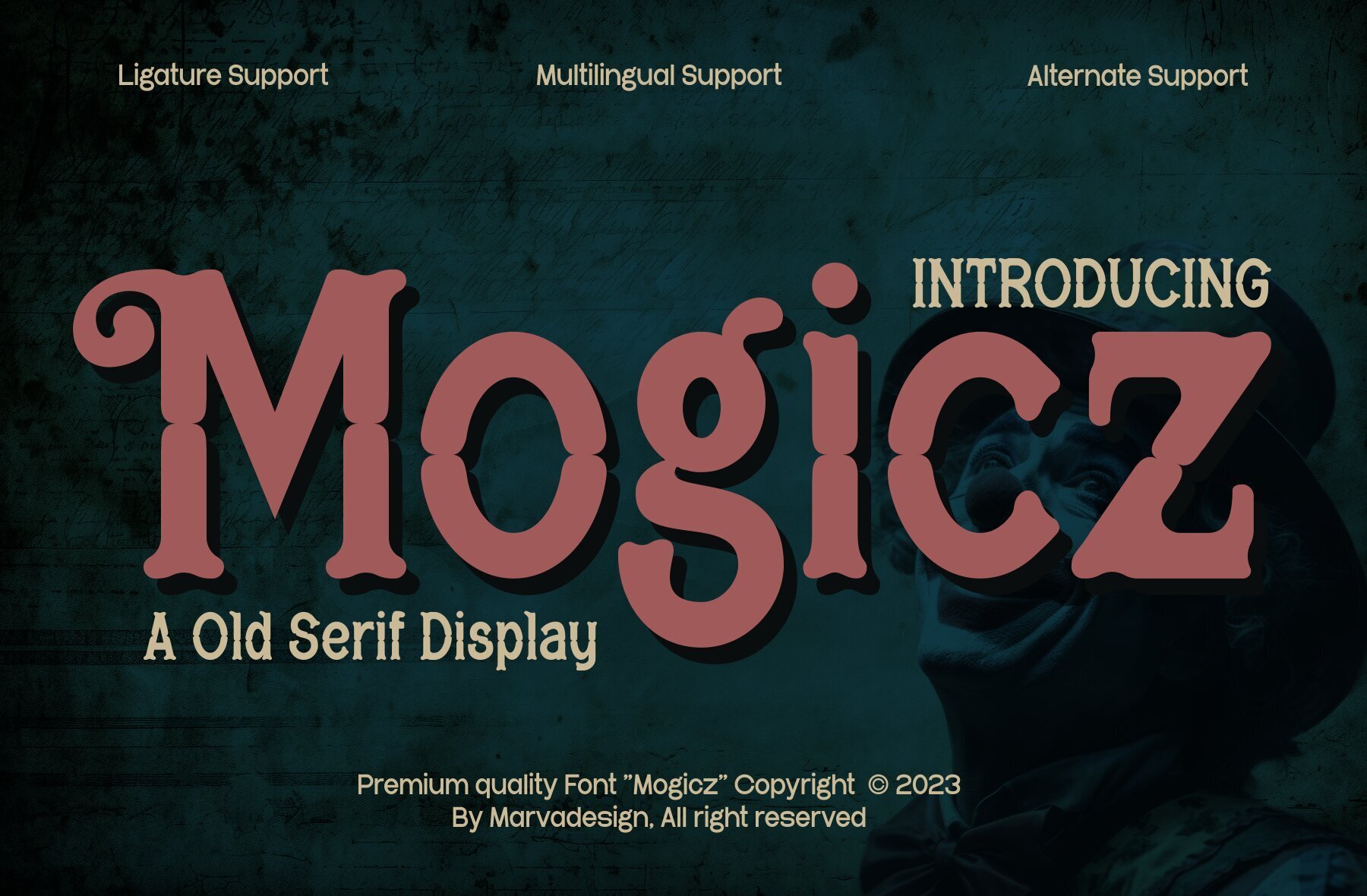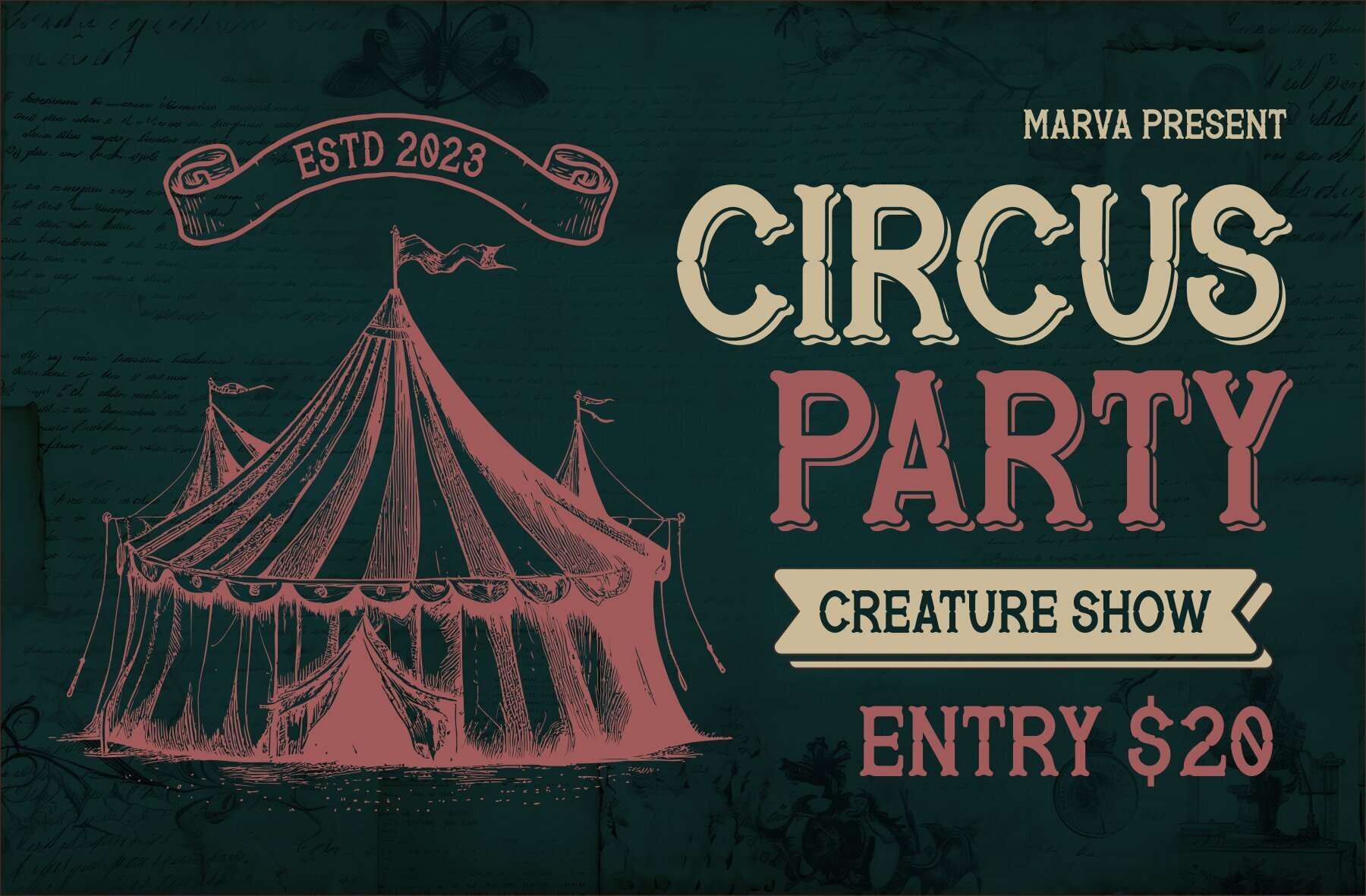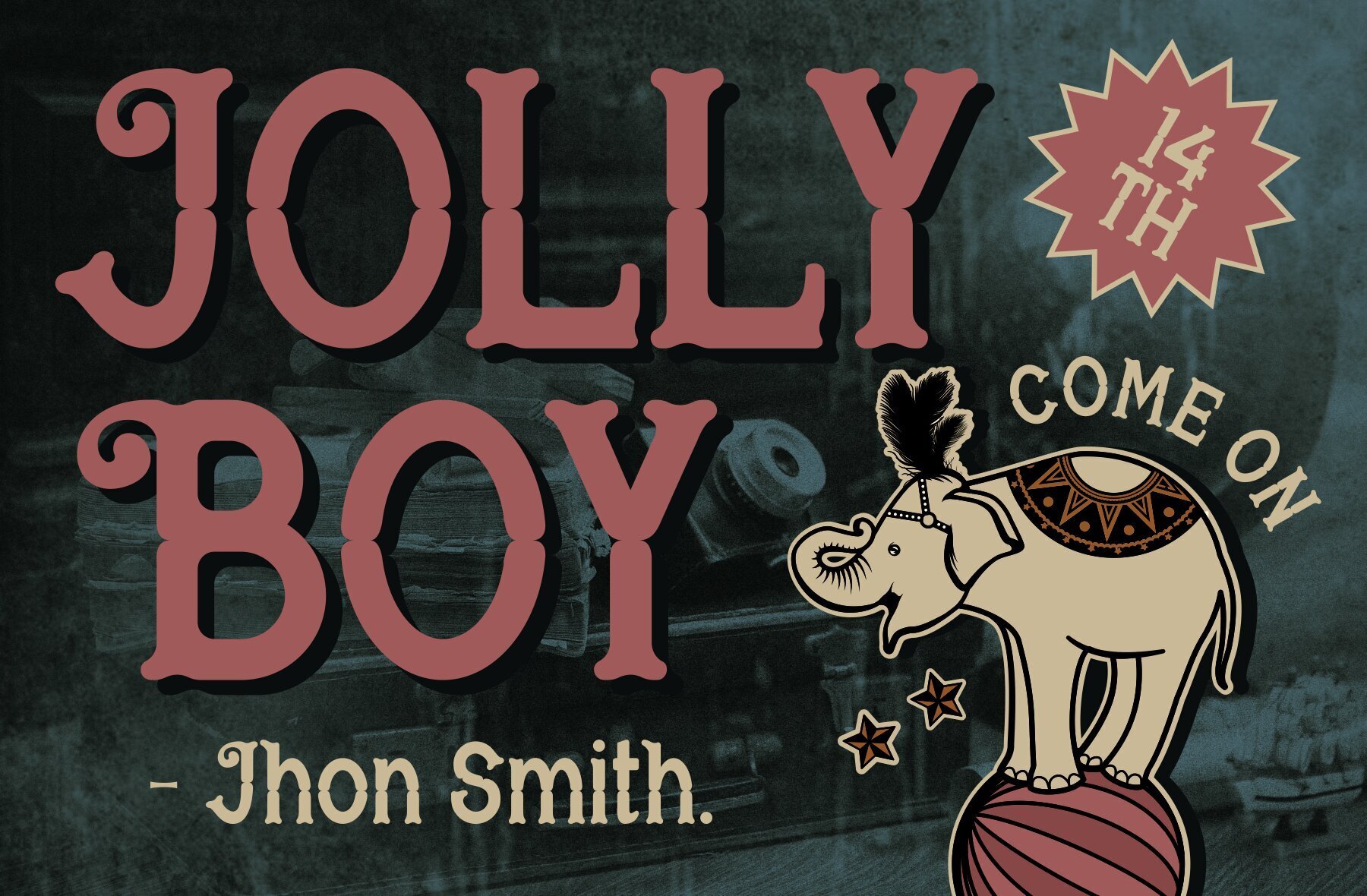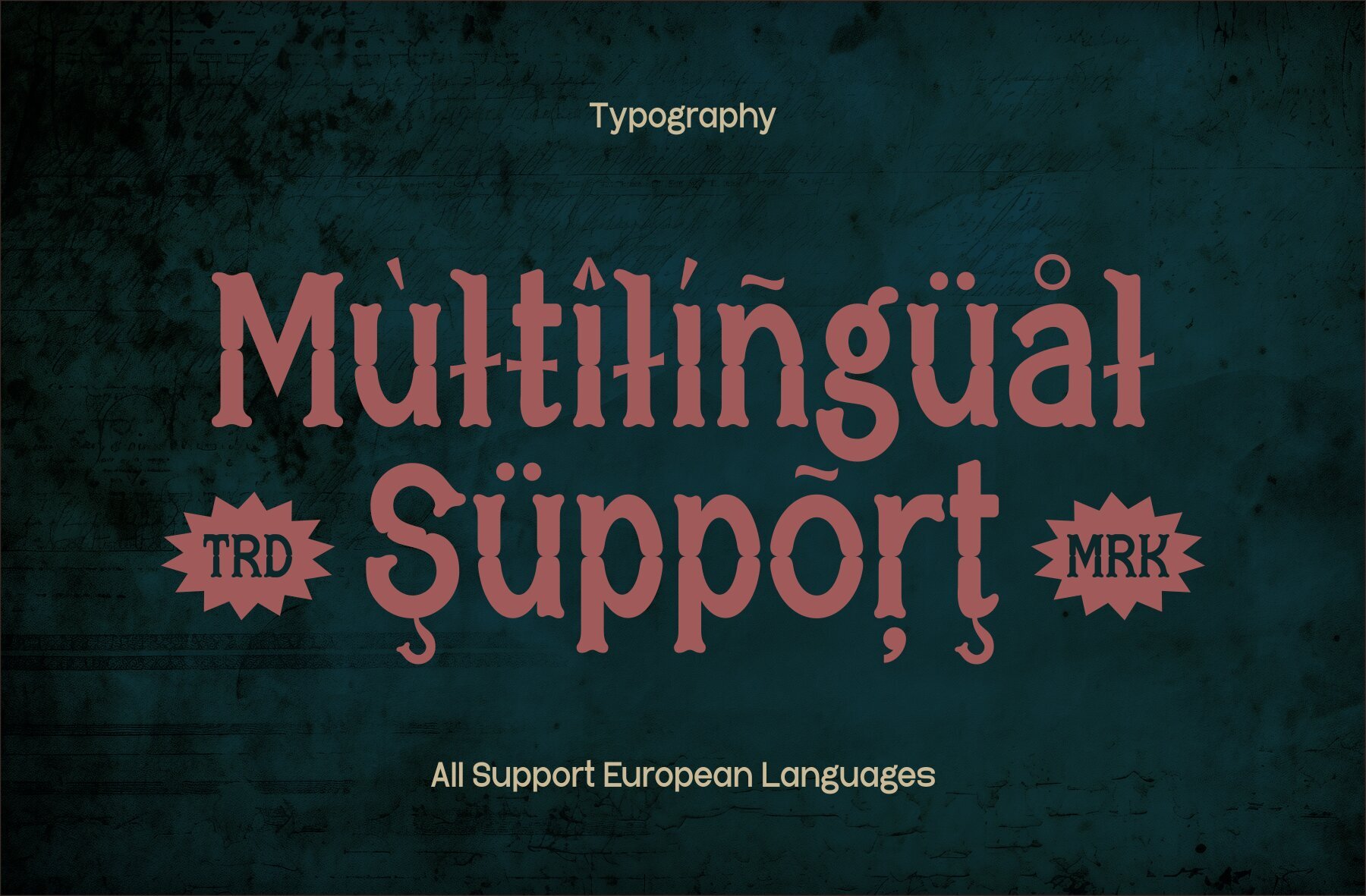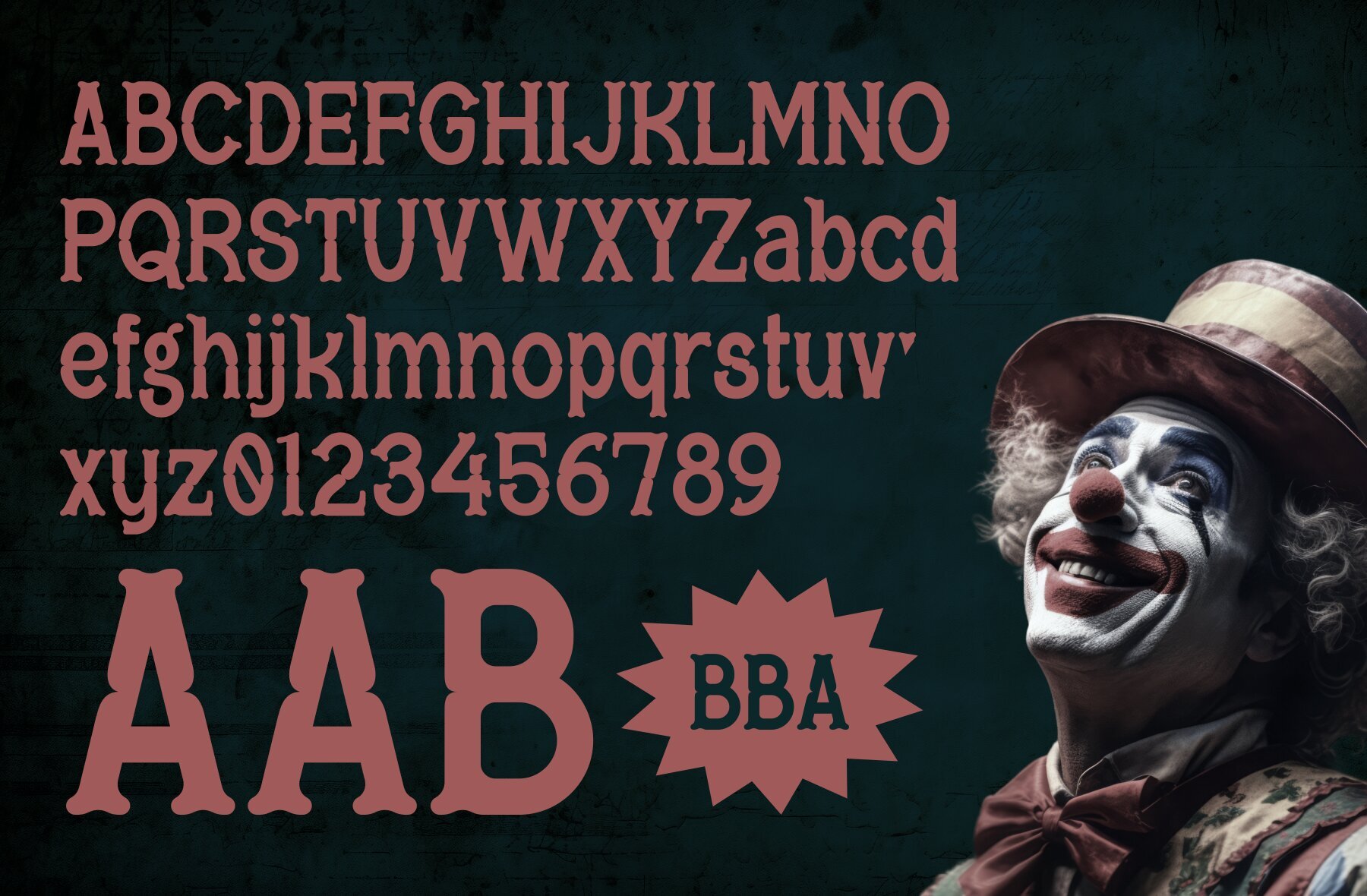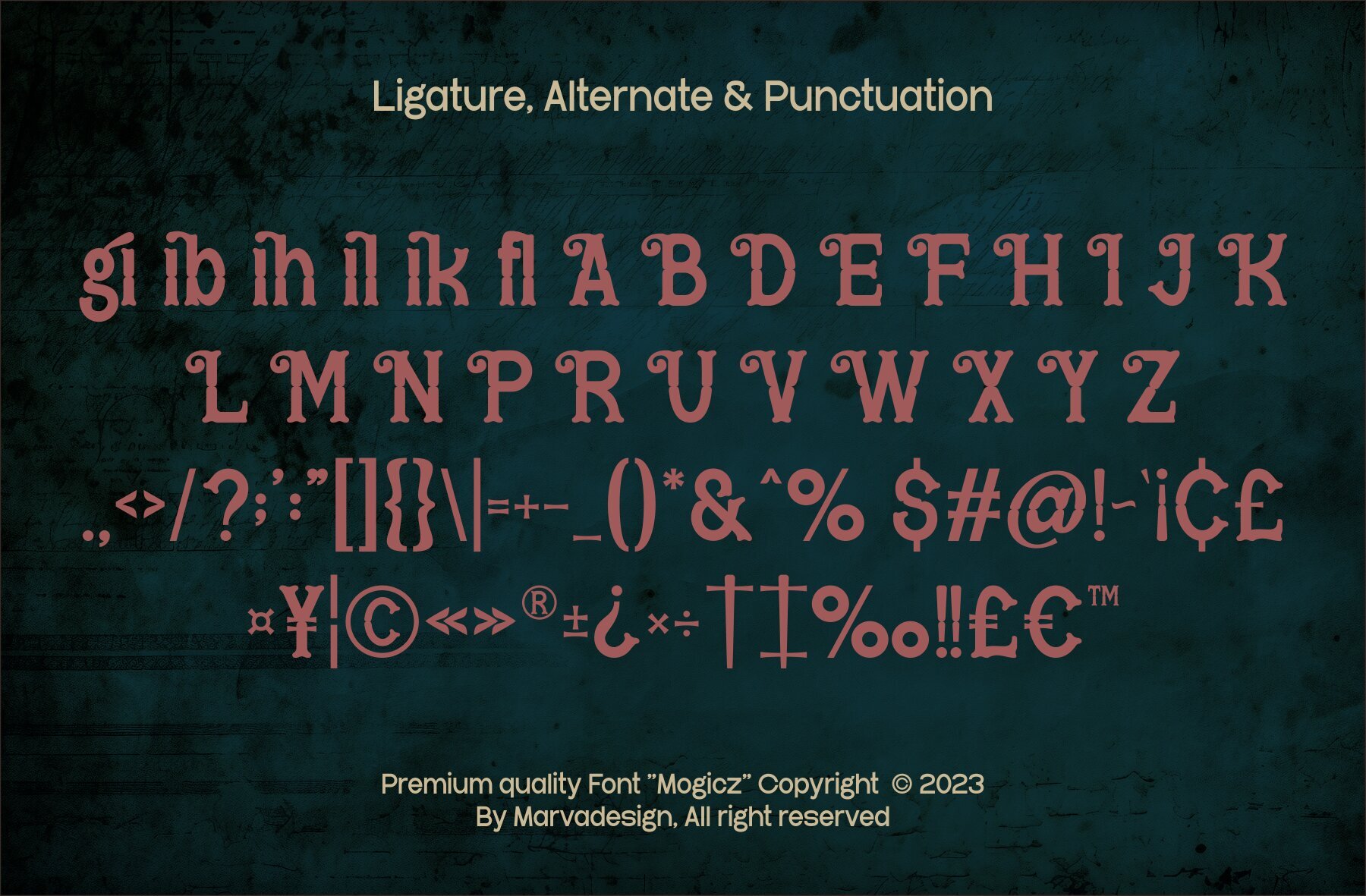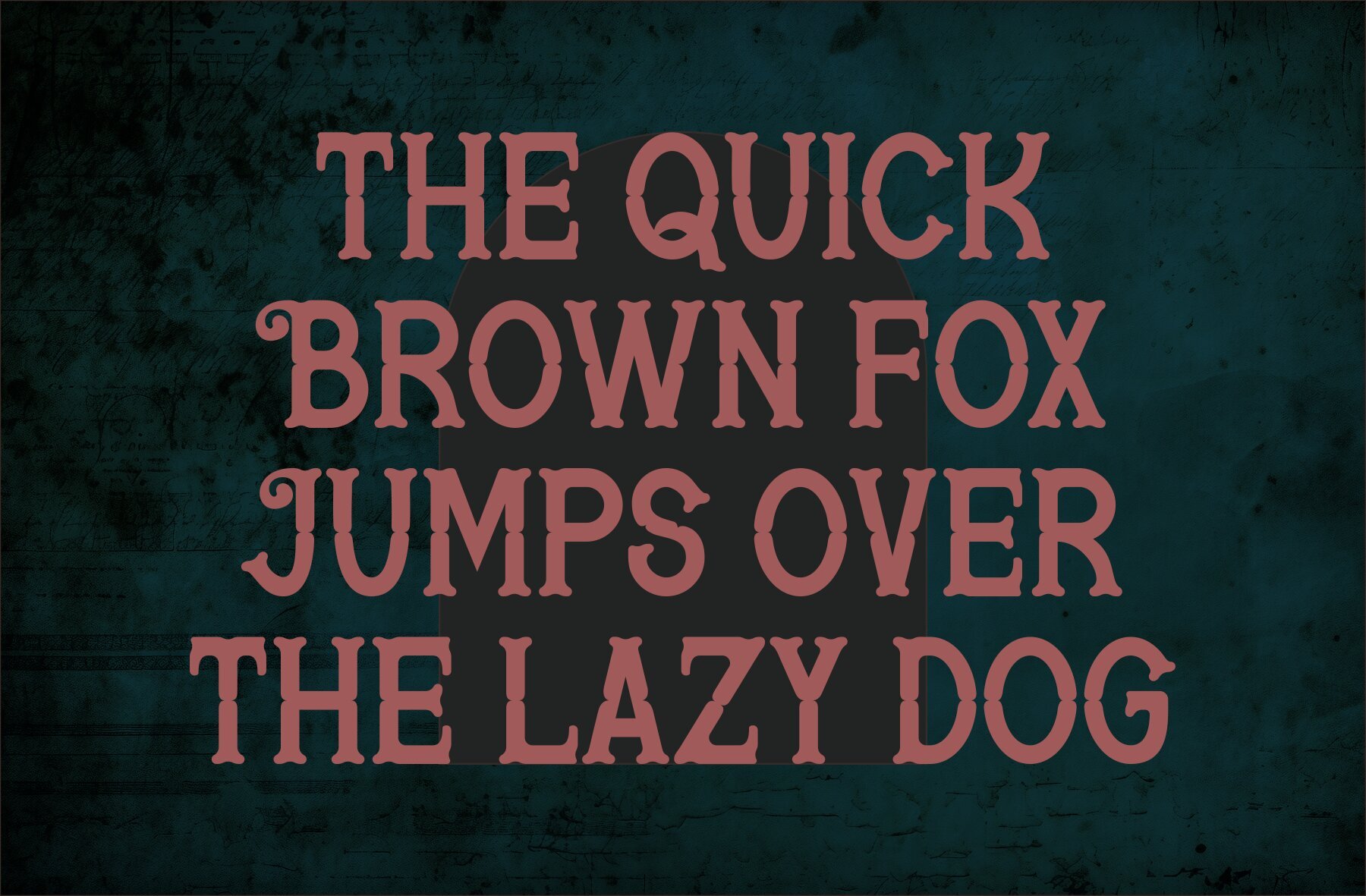
Mogicz Font
Mogicz Regular
Mogicz Font is an authentic old serif display typeface ideal for various branding projects, including logo design, templates, and product packaging. Its versatility allows it to stand out across diverse contexts.Mogicz: Distinctive Old Serif Display Font